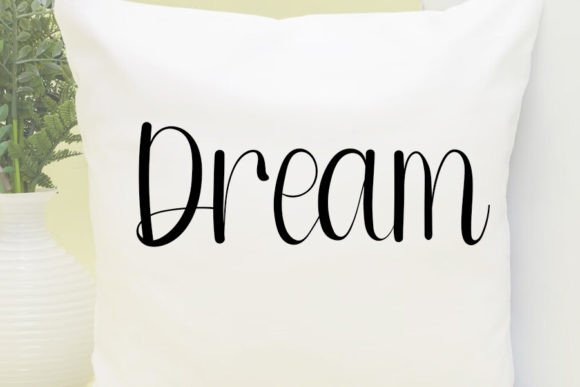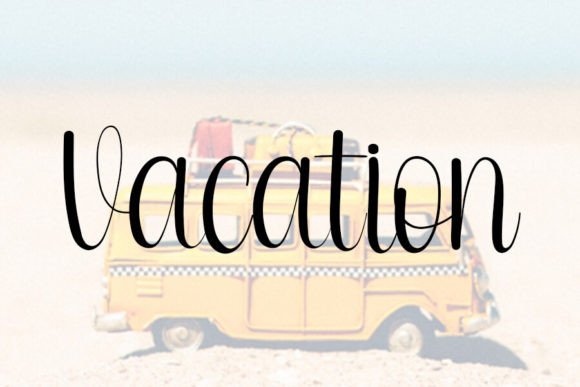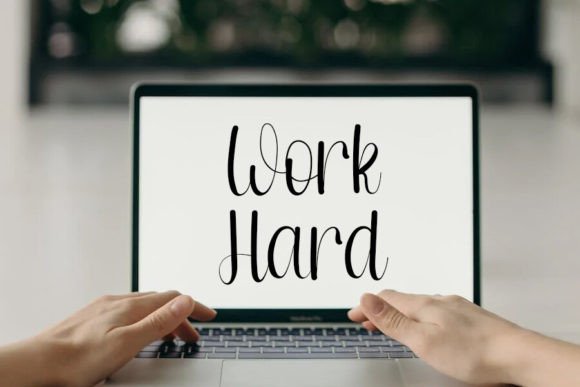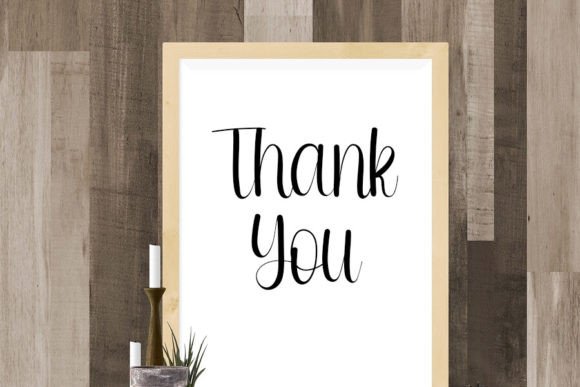
Introducing Farmhouse Font: Elevate Your Designs with Elegant Script
Are you a designer or crafter looking for a font that adds a touch of elegance and sophistication to your projects? Look no further than Farmhouse Font, a stylish and incredibly elegant script font that’s perfect for a variety of design applications. From wedding invitations and thank you cards to quotes, greeting cards, logos, and business cards, Farmhouse Font is the perfect choice for anyone seeking a handwritten touch.
What Makes Farmhouse Font So Special?
Farmhouse Font is a beautifully crafted script font that exudes elegance and refinement. Its flowing lines, intricate details, and classic charm make it an ideal choice for designers and crafters who want to add a personal touch to their work. Whether you’re creating wedding stationery, branding materials, or social media graphics, Farmhouse Font is sure to impress.
- Elegant Script Style: Farmhouse Font features a beautiful, cursive script style that’s perfect for adding a touch of sophistication to your designs.
- Handwritten Touch: With its flowing lines and natural connections, Farmhouse Font gives your designs a warm, handwritten feel that’s sure to resonate with your audience.
- Versatile: Farmhouse Font is perfect for a wide range of design applications, from wedding invitations and greeting cards to logos, business cards, and more.
- Easy to Read: Despite its elegant style, Farmhouse Font is surprisingly easy to read, making it perfect for body text and longer design elements.
Design Applications for Farmhouse Font
Farmhouse Font is an incredibly versatile font that can be used in a variety of design applications. Here are just a few ideas to get you started:
- Wedding Invitations: Add a touch of elegance to your wedding stationery with Farmhouse Font, perfect for save-the-dates, formal invitations, and thank you cards.
- Greeting Cards: Create beautiful, handmade-style greeting cards for special occasions like birthdays, holidays, and anniversaries.
- Logos and Branding: Use Farmhouse Font to create a unique and memorable logo for your business or brand.
- Business Cards: Stand out from the crowd with beautifully designed business cards featuring Farmhouse Font.
- Social Media Graphics: Add a personal touch to your social media graphics, quotes, and inspirational messages with Farmhouse Font.
To get the most out of Farmhouse Font, here are a few tips to keep in mind:
- Pair with Simple Backgrounds: Let Farmhouse Font be the star of the show by pairing it with simple backgrounds and minimal design elements.
- Experiment with Colors: Try pairing Farmhouse Font with a range of colors to find the perfect combination for your design.
- Use for Headlines and Titles: Farmhouse Font is perfect for headlines and titles, but don’t be afraid to use it for body text too.